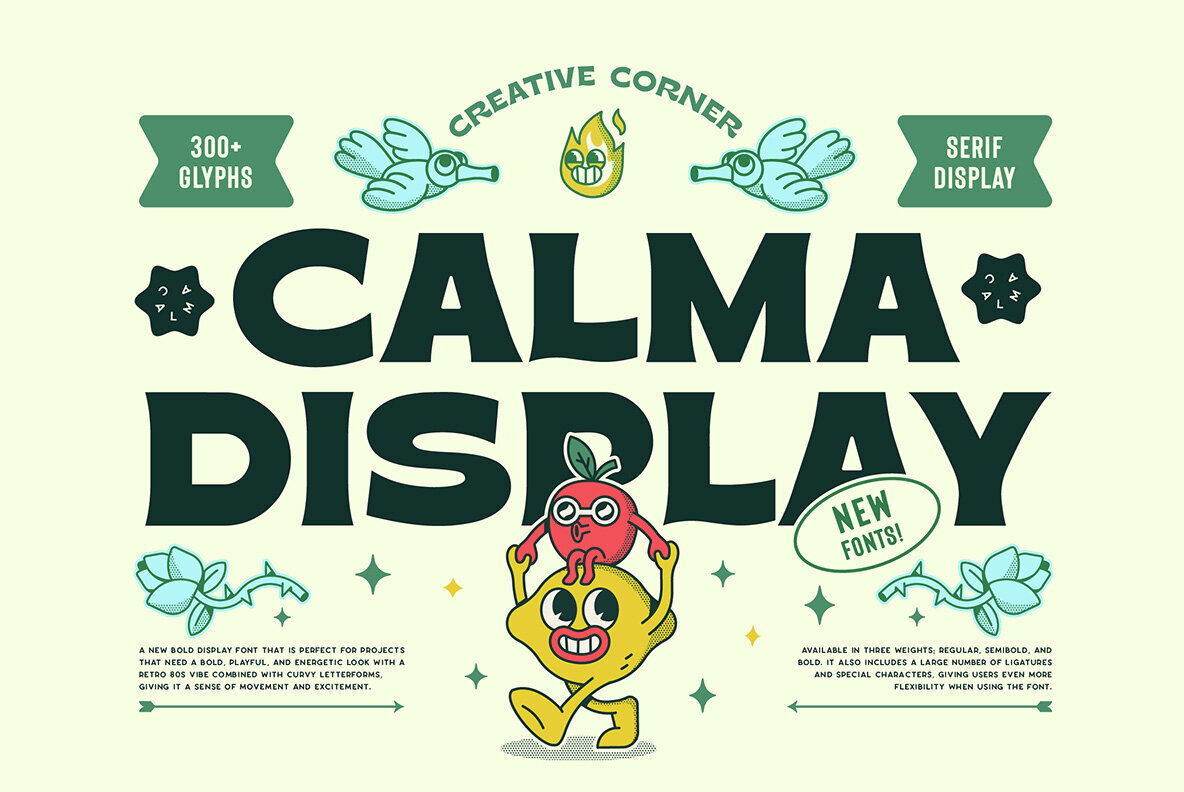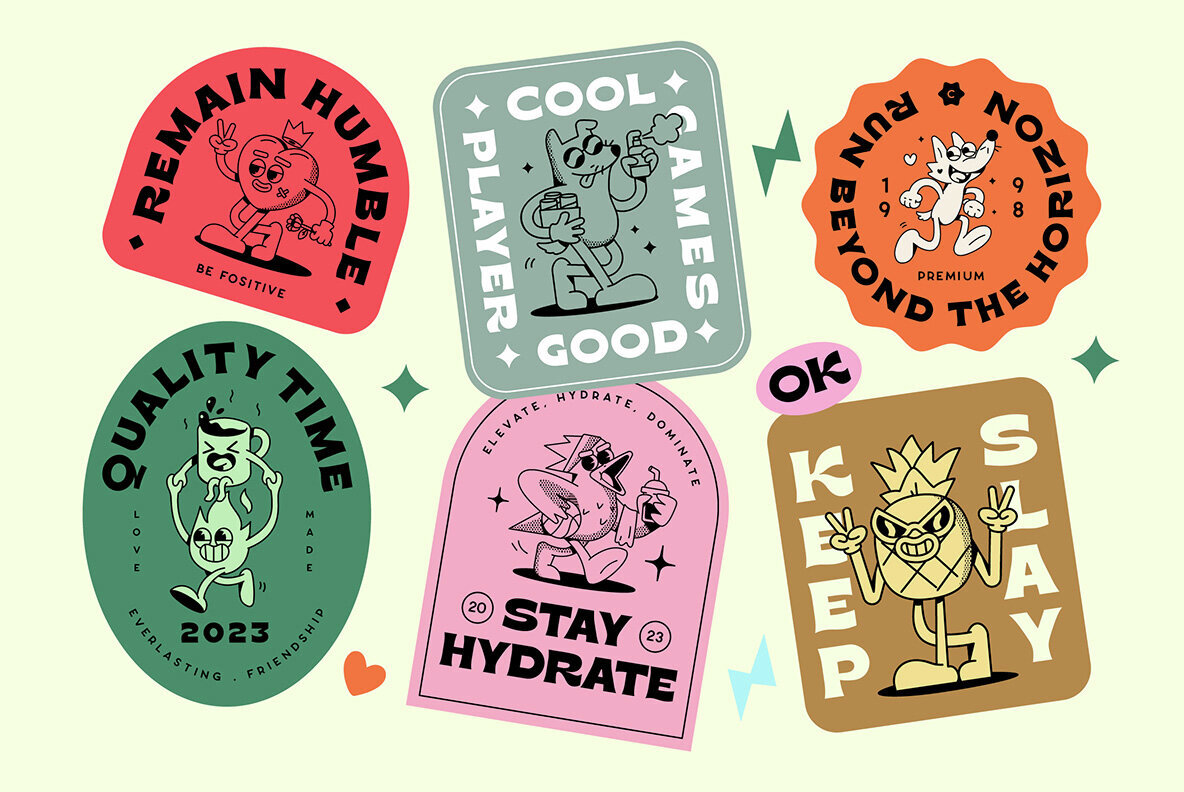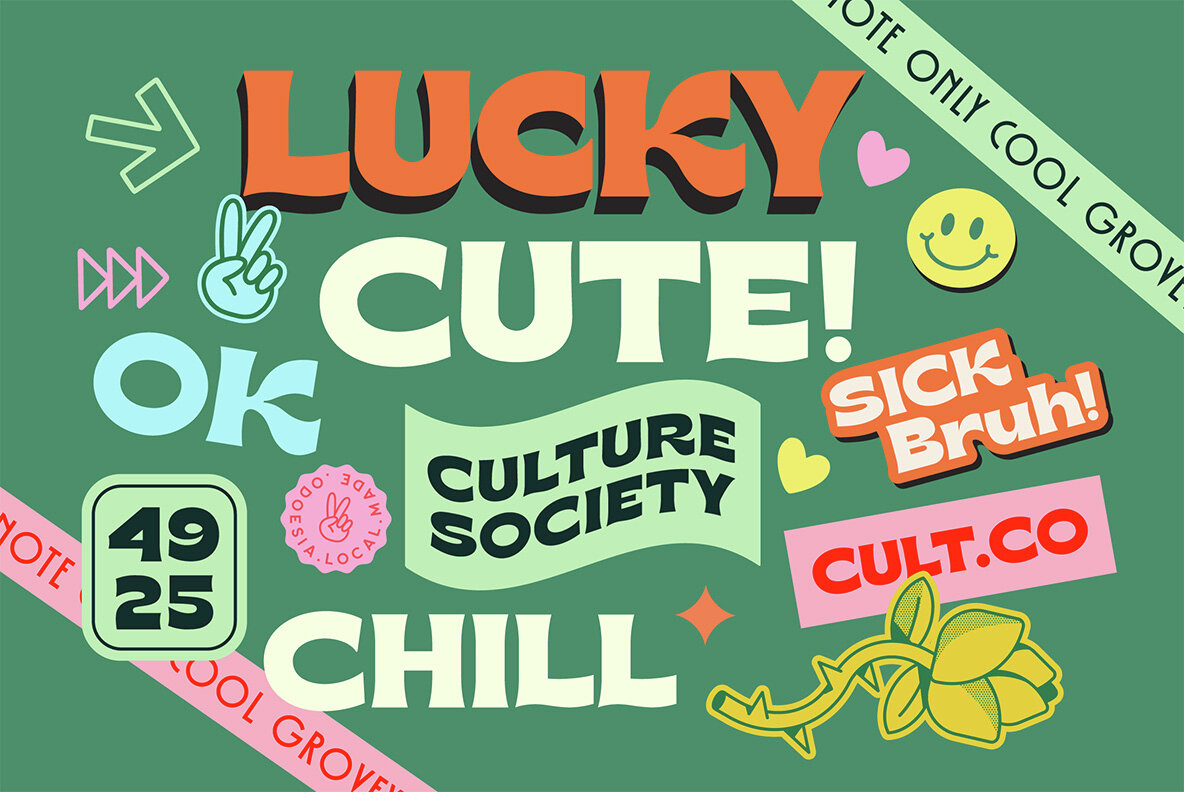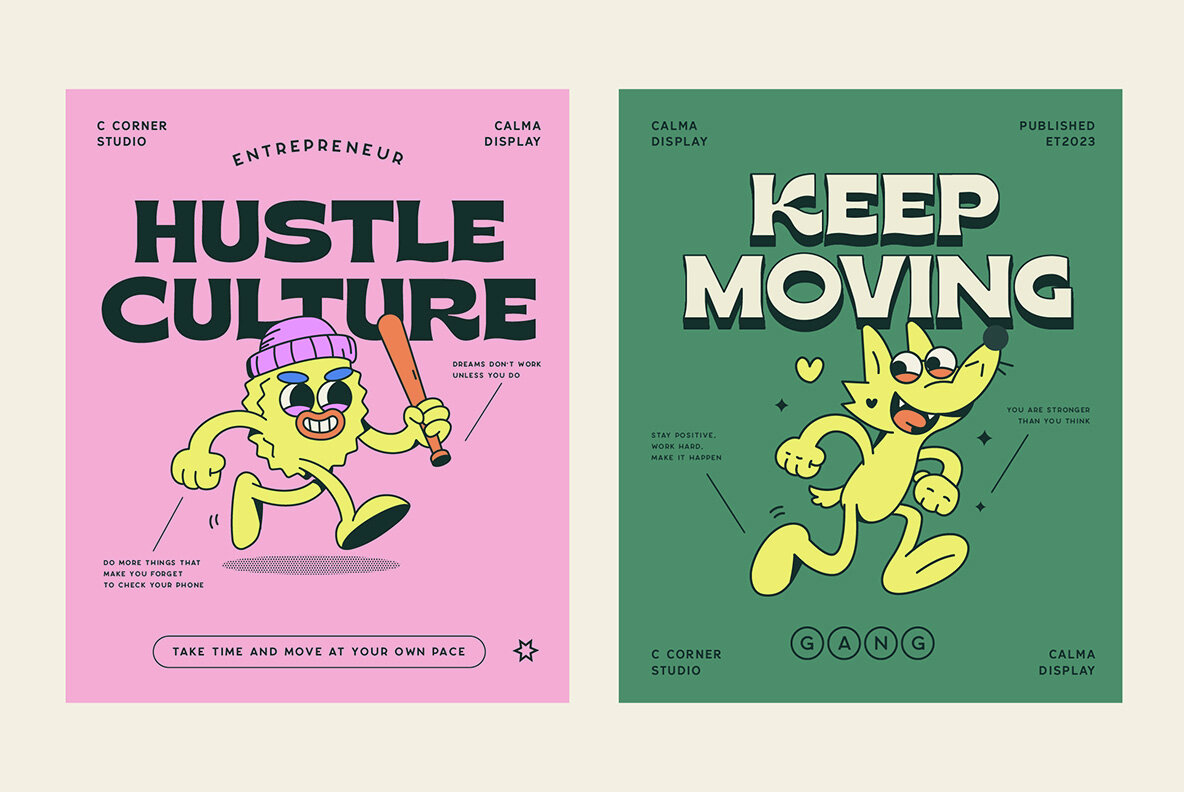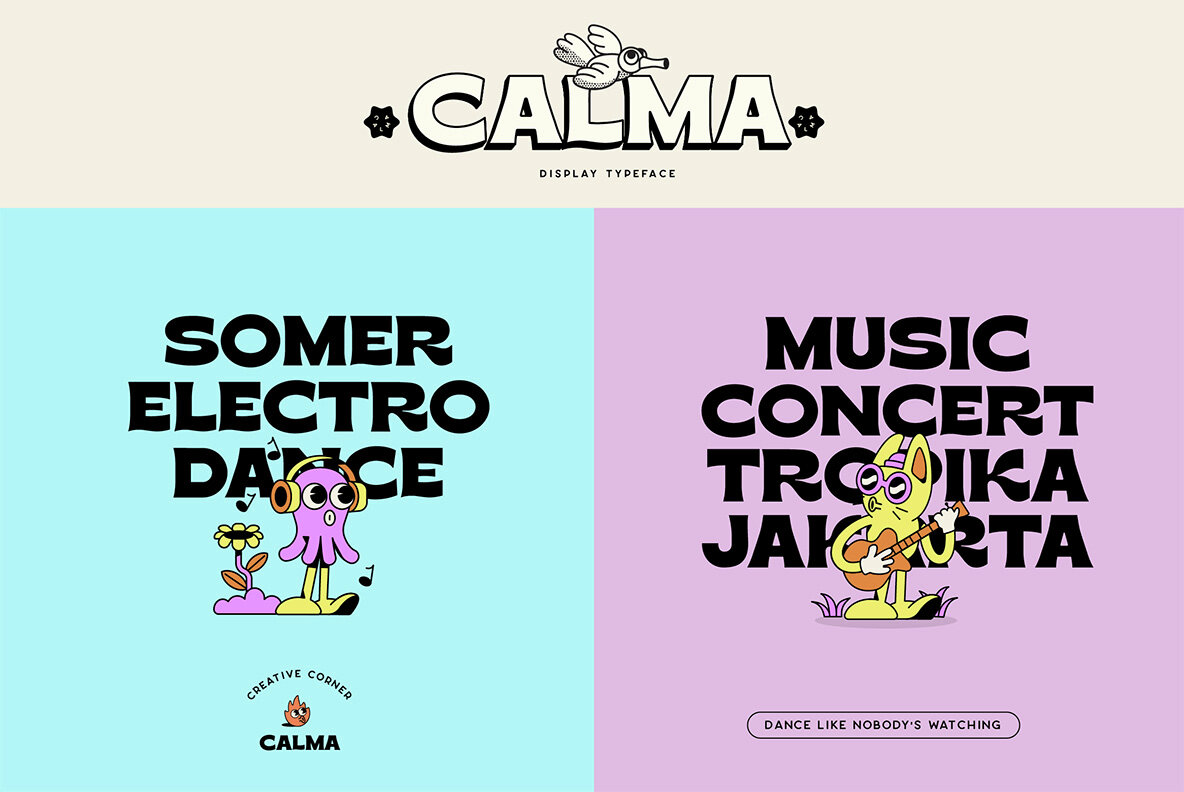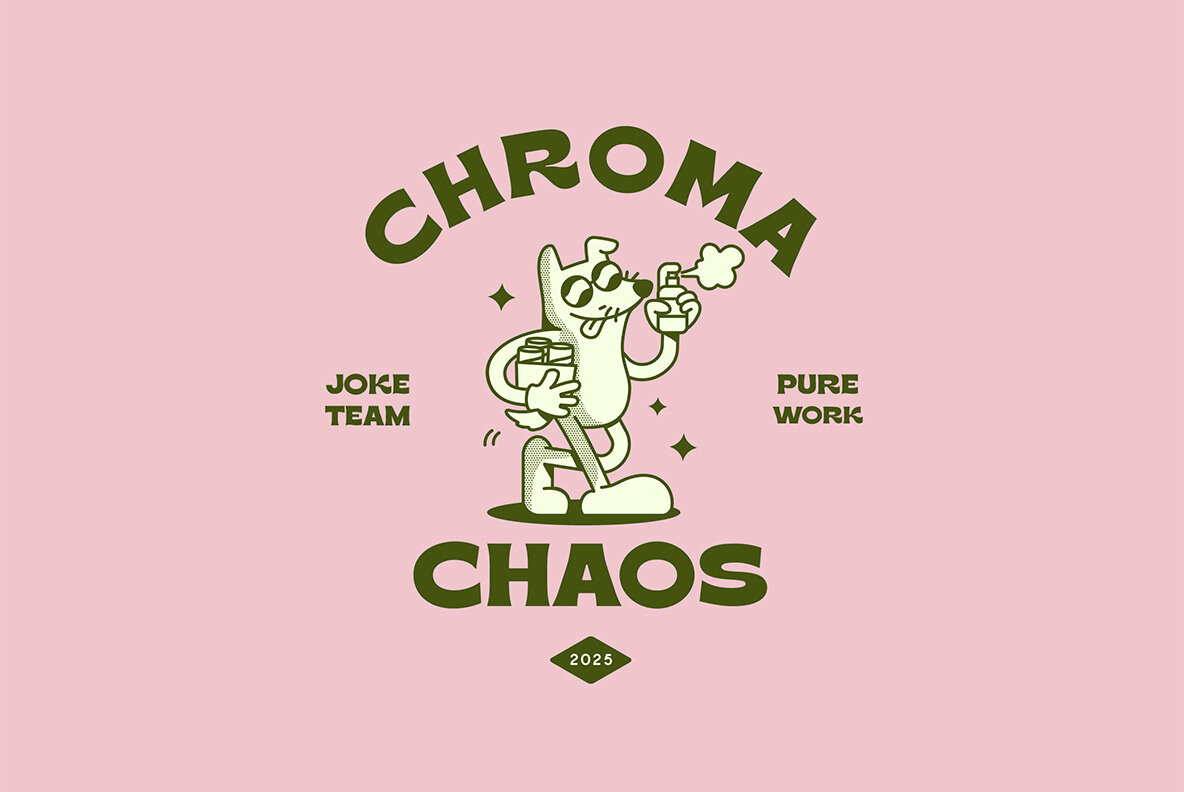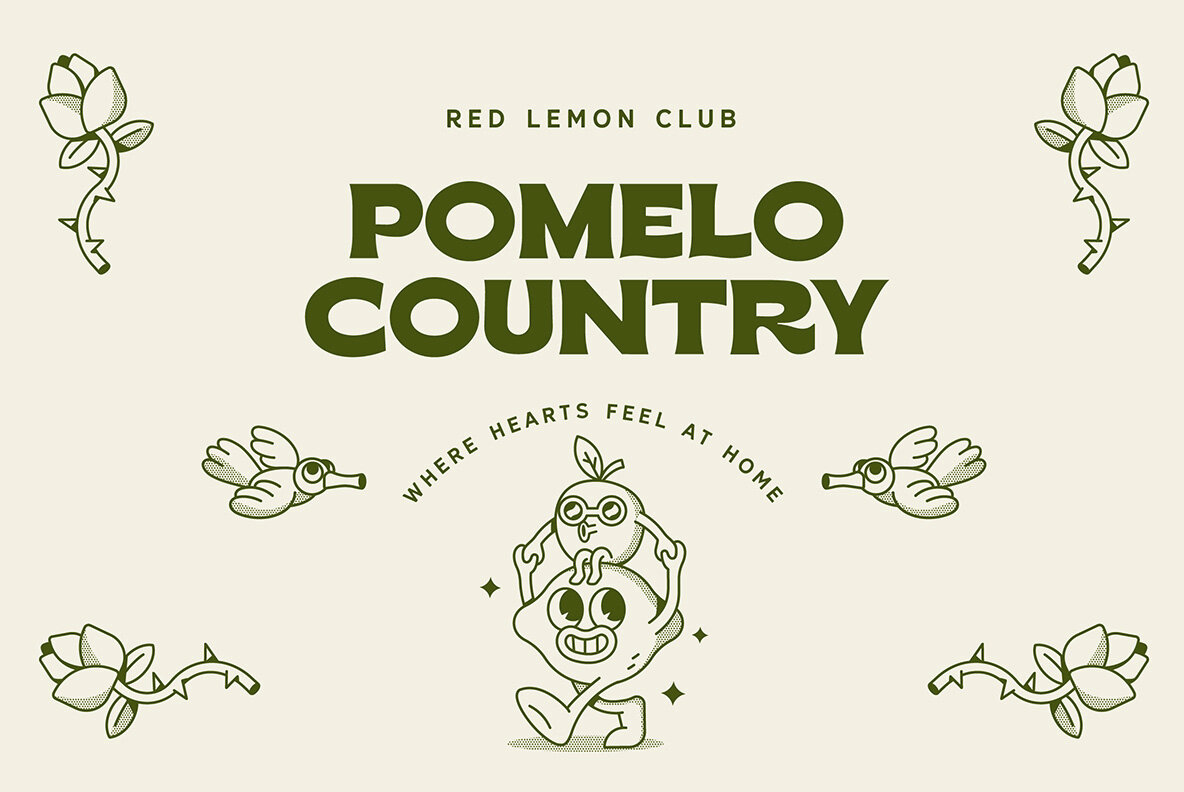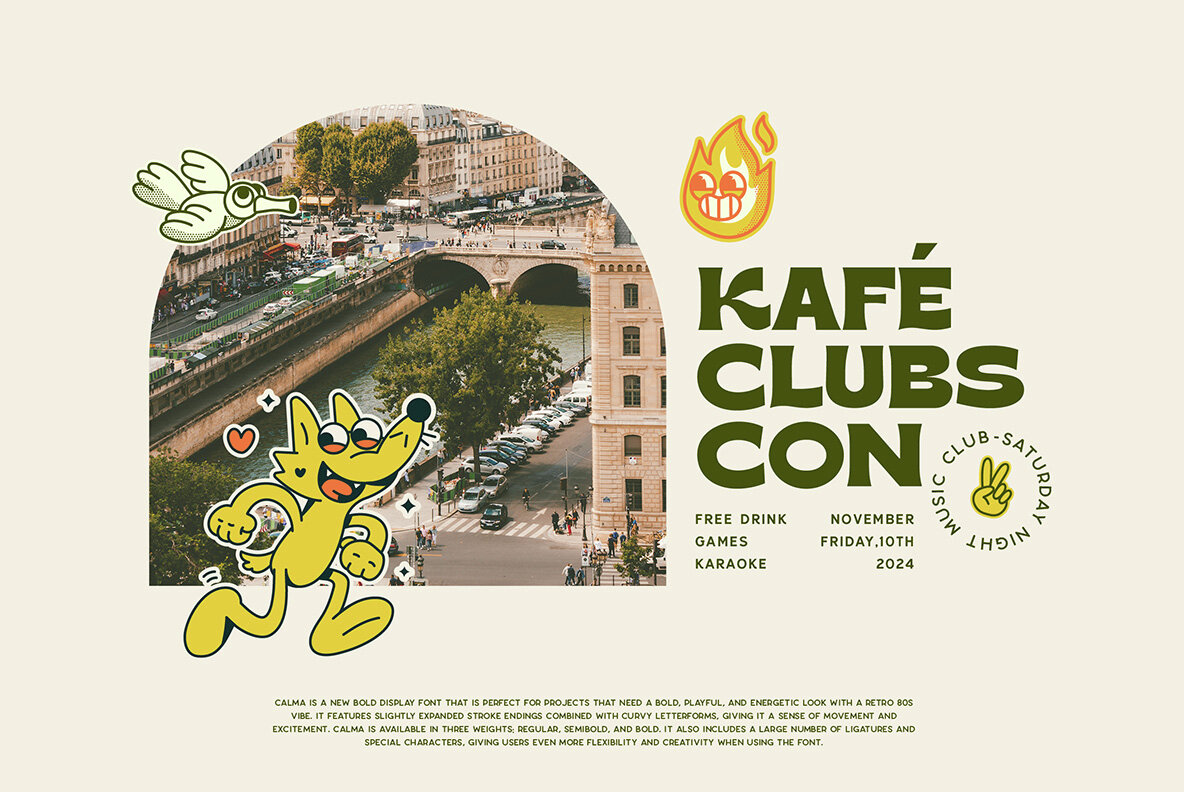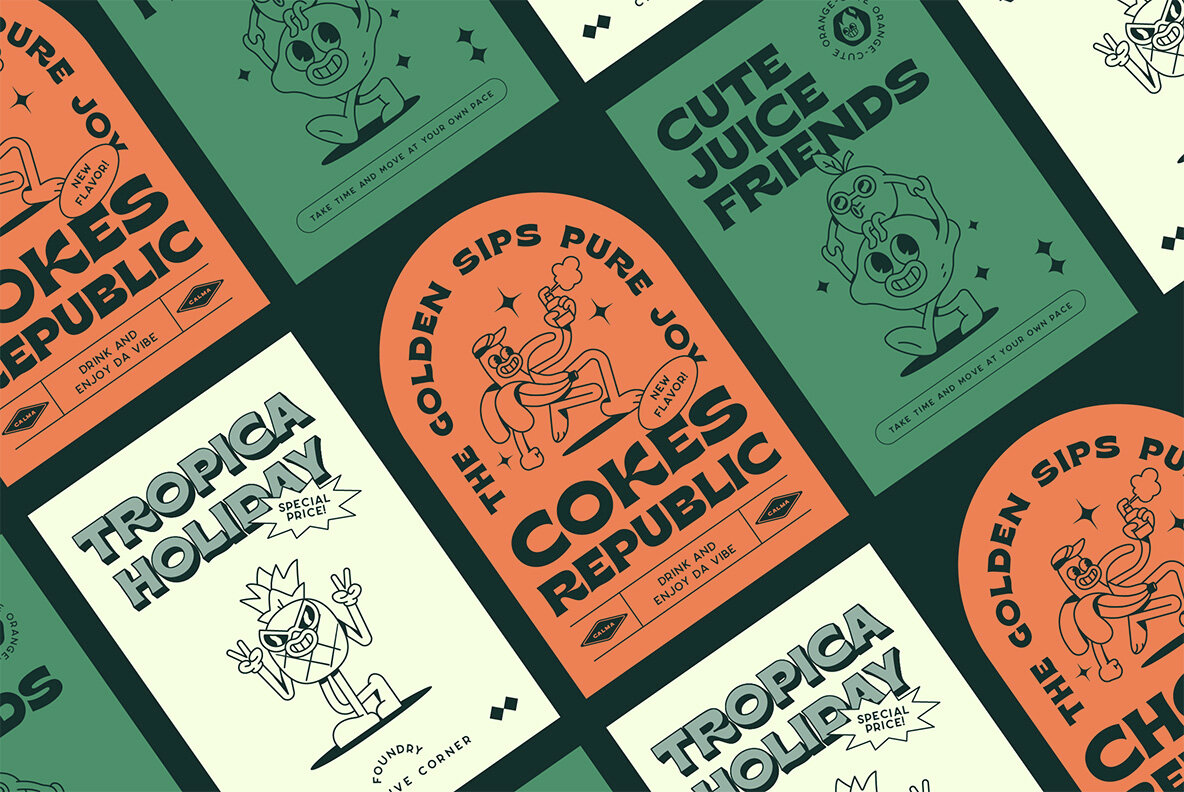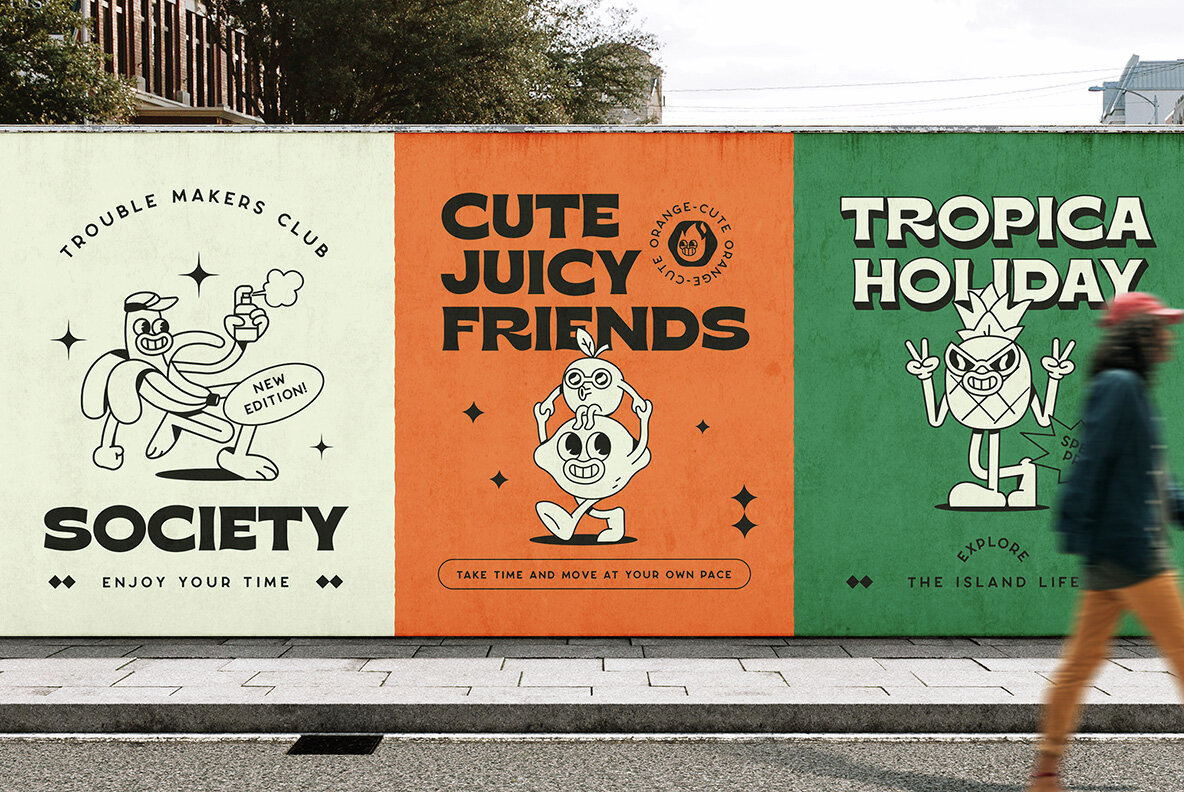
Calma is a new bold display font that is perfect for projects that need a bold, playful, and energetic look with a retro 80s vibe. It features slightly expanded stroke endings combined with curvy letterforms, giving it a sense of movement and excitement. It also includes a large number of ligatures and special characters, giving users even more flexibility and creativity when using the font. Calma can be used for a variety of purposes, including headlines, titles, posters, packaging, and branding. It is also well-suited for use in digital applications, such as websites and social media. Calma is the font that will make your next project pop!